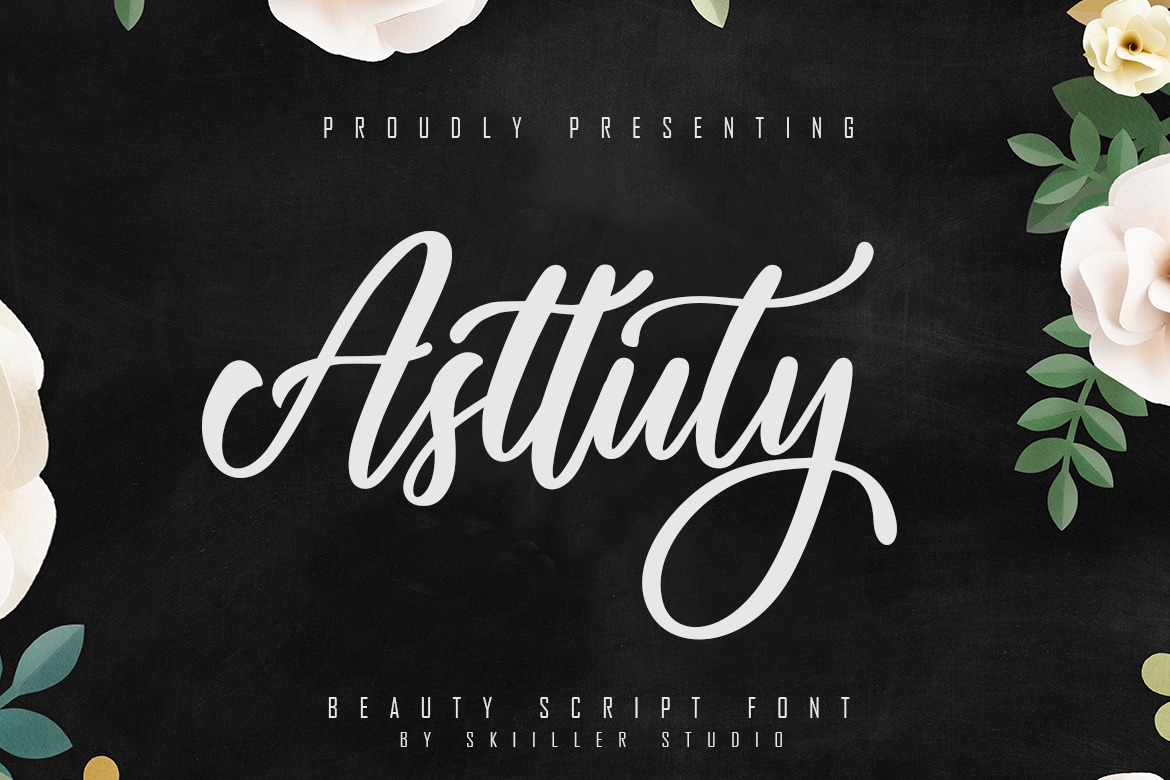
Asttuty Beauty Script Font
Asttuty Beauty Script Font This is our newest product called Asttuty Beauty Script Font. This is a Beautiful font designed according to general needs Asttuty is a very good font for logos, blogs / web headlines, clothing, invitations, posters, cafe / restaurant signs, and many others.
- Stylistic Alternate for lowercase
- Stylistic set for lowercase
- Basic Latin Language Support (AÀÁÂÃÄÅCÇDÐEÈÉÊËIÌÍÎÏÑOØÒÓÔÕÖUÙÜÚÛWYÝŸÆß )